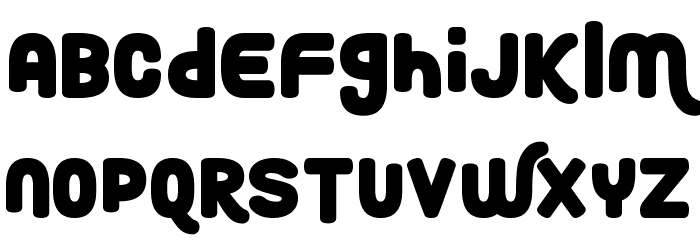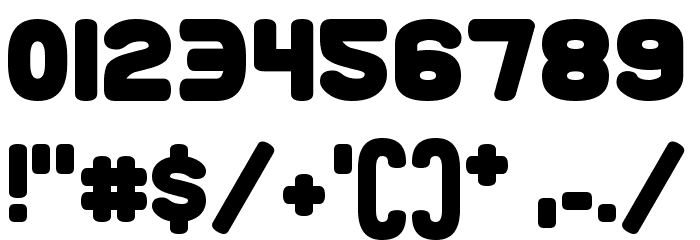
Roundy Rainbows Font
This playful and bold font features rounded edges and a bubbly appearance, giving it a friendly and approachable feel. The characters are uniformly thick, creating a consistent and cohesive look across all letters and numbers. Its unique style is characterized by a whimsical flair, making it ideal for projects that require a touch of fun and creativity. The font maintains a consistent weight throughout, ensuring readability while adding a distinctive personality to any design. Its rounded terminals and smooth curves contribute to its overall charm, making it suitable for a variety of creative applications.
A playful, rounded font with a bold, bubbly appearance.
- Font: Roundy Rainbows
- Proposed Projects: Ideal for children's books, playful branding, party invitations, and creative posters.
- Overall Style: Playful, Fun